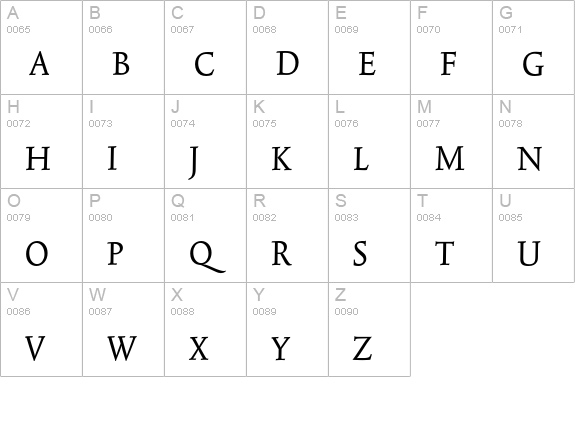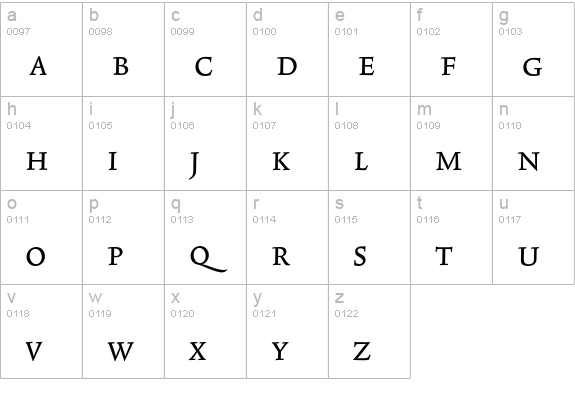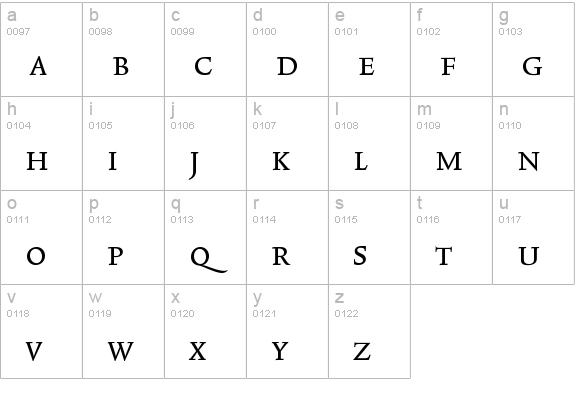
TriniteNo3-RomanCondExp is a stunning font that brings a touch of elegance and sophistication to any design project. Its sleek and slender letterforms exude a sense of modernity and refinement, making it perfect for a wide range of applications. This font features a condensed and expressive style, which adds a unique flair to any text. The condensed design allows for more words to fit in a limited space, making it ideal for headlines, captions, and any other instances where space is at a premium. The expressive nature of the font adds a subtle emphasis to each character, making your text come alive on the page. TriniteNo3-RomanCondExp is not only visually captivating, but it is also incredibly versatile. Whether you're designing a logo, creating a magazine layout, or crafting an invitation, this font will effortlessly elevate your design to new heights. One of the most appealing aspects of TriniteNo3-RomanCondExp is that it is freely available to download at FontsMarket.com. This means that you can easily access and use this font for personal projects, commercial endeavors, or anything in between. The convenience and accessibility of this font make it a valuable asset for designers and creatives alike. Overall, TriniteNo3-RomanCondExp is a font that combines elegance, versatility, and accessibility. Its sleek and expressive design will undoubtedly enhance any design project, adding a touch of sophistication and allure.